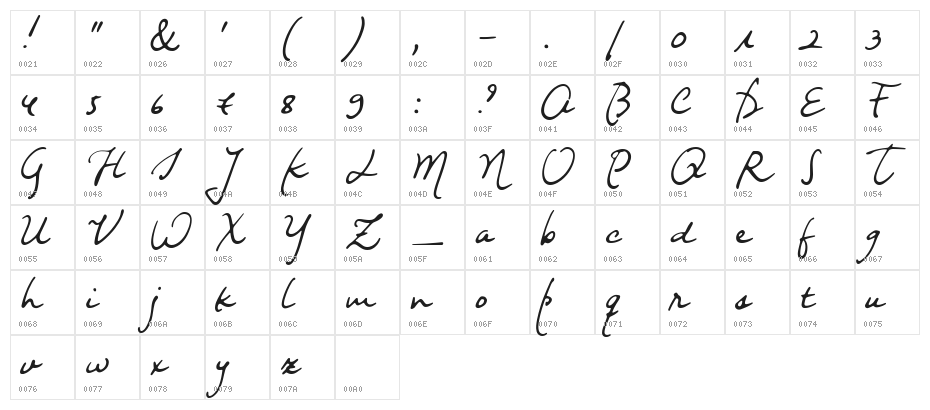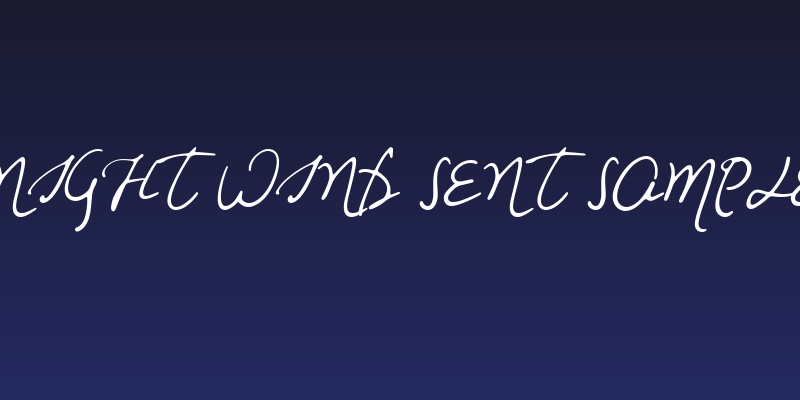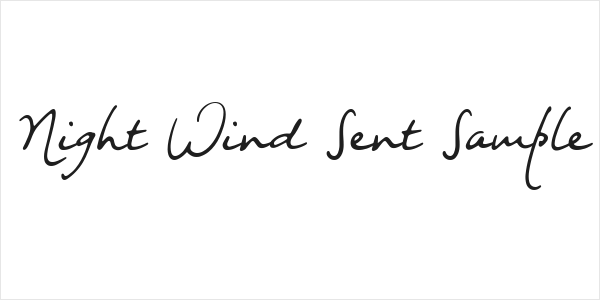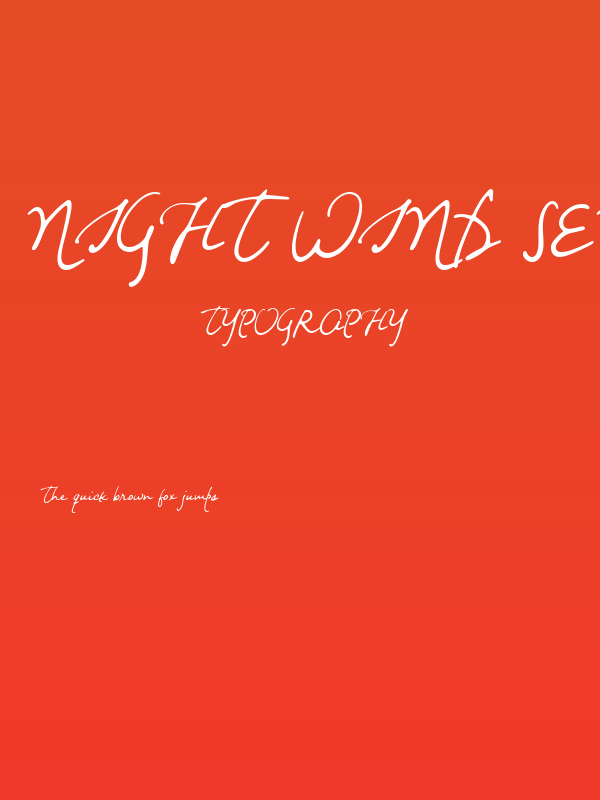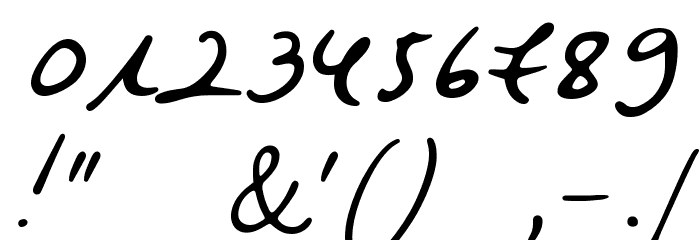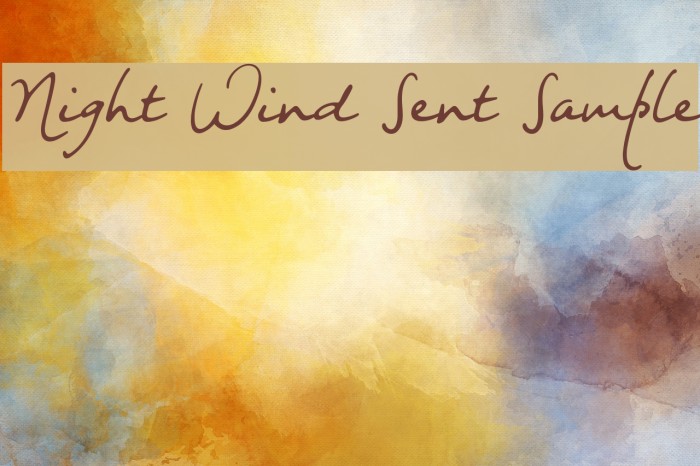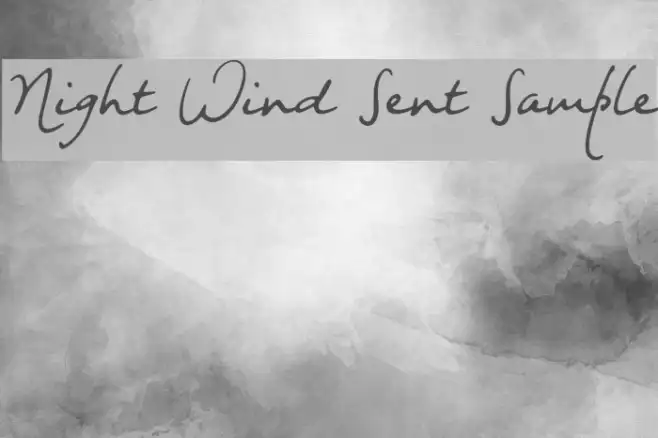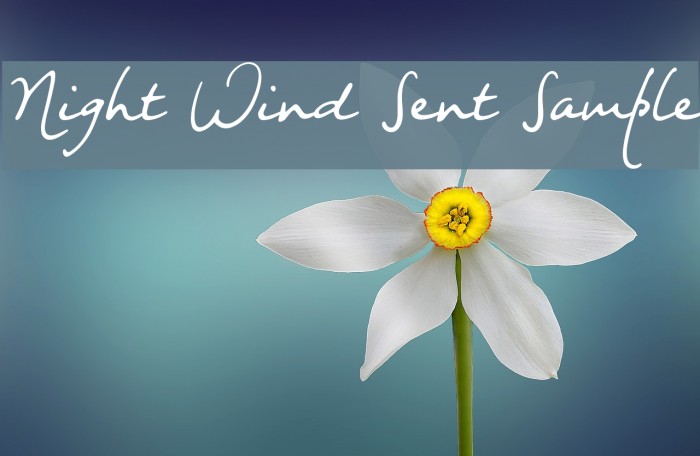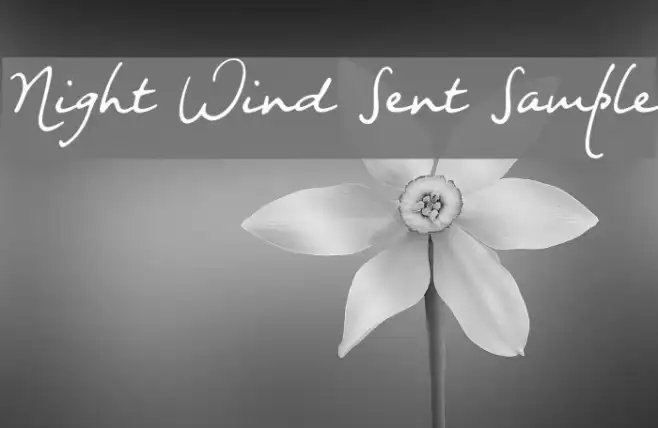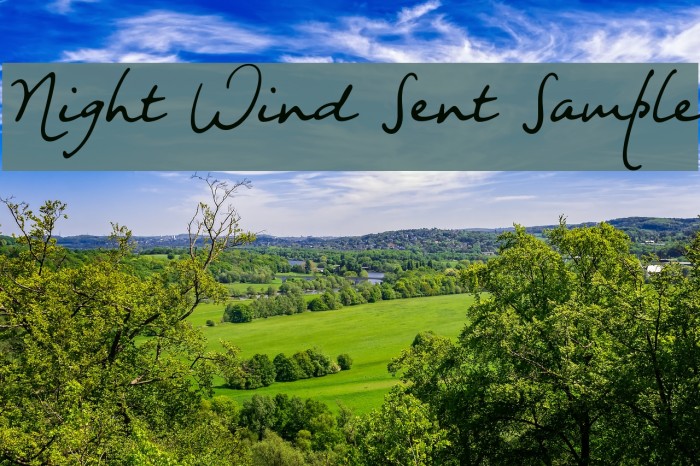
Night Wind Sent Sample Font
Night Wind Sent Sample Description
This font exudes a dynamic and fluid style, characterized by its cursive, handwritten appearance. The letters are interconnected, creating a seamless flow that mimics natural handwriting. The uppercase letters maintain a consistent height, while the lowercase letters exhibit a slight slant, enhancing the script-like quality. The numerals and special characters are crafted with the same fluidity, ensuring uniformity across all glyphs. The strokes vary in thickness, adding a touch of elegance and sophistication. This font is ideal for projects that require a personal, artistic touch, such as invitations, greeting cards, or branding materials that aim to convey a sense of warmth and creativity.